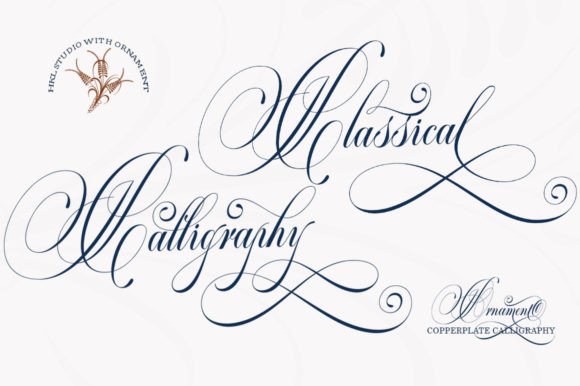
Introducing Classical Calligraphy Font, the best font for web page design! Created by HKL Studio, this vintage calligraphy script font is the perfect choice for users looking to elevate their designs and captivate their audience.
With its beautiful alternative characters, Classical Calligraphy combines the elegance of copperplate calligraphy with a unique handwriting style. The result is a font that exudes grace, charm, and sophistication.
When you use Classical Calligraphy, your designs will instantly become smooth, clean, and highly readable. Its feminine and sensual qualities add a touch of glamour to any project, making it ideal for logos, wedding invitations, alcohol labels, romantic cards, and so much more.
But what sets Classical Calligraphy apart from other fonts? It's the attention to detail and the love poured into its creation. Each letter and character has been meticulously designed to ensure a seamless and visually pleasing experience for your audience.
Not only is Classical Calligraphy visually stunning, but it's also incredibly functional. This font is PUA encoded, which means you can easily access all of the glyphs and swashes. With just a few clicks, you can unlock a world of possibilities and truly make your designs stand out.
Imagine the impact your website will have with Classical Calligraphy as the centerpiece. Your visitors will be drawn in by its allure, and they won't be able to resist exploring further. With this font, you have the power to create a memorable and captivating browsing experience.